The Malee Scholarship specially recognizes four women for their unique achievements and contributions to the type design industry.
This year The Malee Scholarship recognizes Lana Soufeh, Lina Paola Garzón Gallardo, Quỳnh Hương Nguyễn Đức, and Norma Elzoghbi for their achievements and contributions to the type design industry. Together they represent Jordan, Columbia, Vietnam, and Lebanon. The Malee Team was impressed with how their work revolves around typeface design in diverse ways from Arabic typeface design and editorial design, to embroidery and animation.
Lana Soufeh
Lana Soufeh is a type designer from Amman, Jordan. She received her Bachelors in Graphic Design in Beirut, Lebanon. Currently, she is based in Lausanne, Switzerland while attending her Masters in Type Design at ECAL. While she describes herself as having an ongoing conflict with her culture, she specifically fell in love with it more and more when writing, reading, and speaking Arabic. Her experience at ECAL was the first step she took towards learning type design. While she did not have any knowledge in Latin type, ECAL offered her extensive guidance and access to resources and experiments to fulfill her research and further her learning. Lana is eager to learn and explore her mother tongue first through Latin type design, since there are not any schools and not enough digital Arabic typefaces. Following her studies, she hopes to continue her path and passion in type design and typography, and impact other young Arab designers around her.
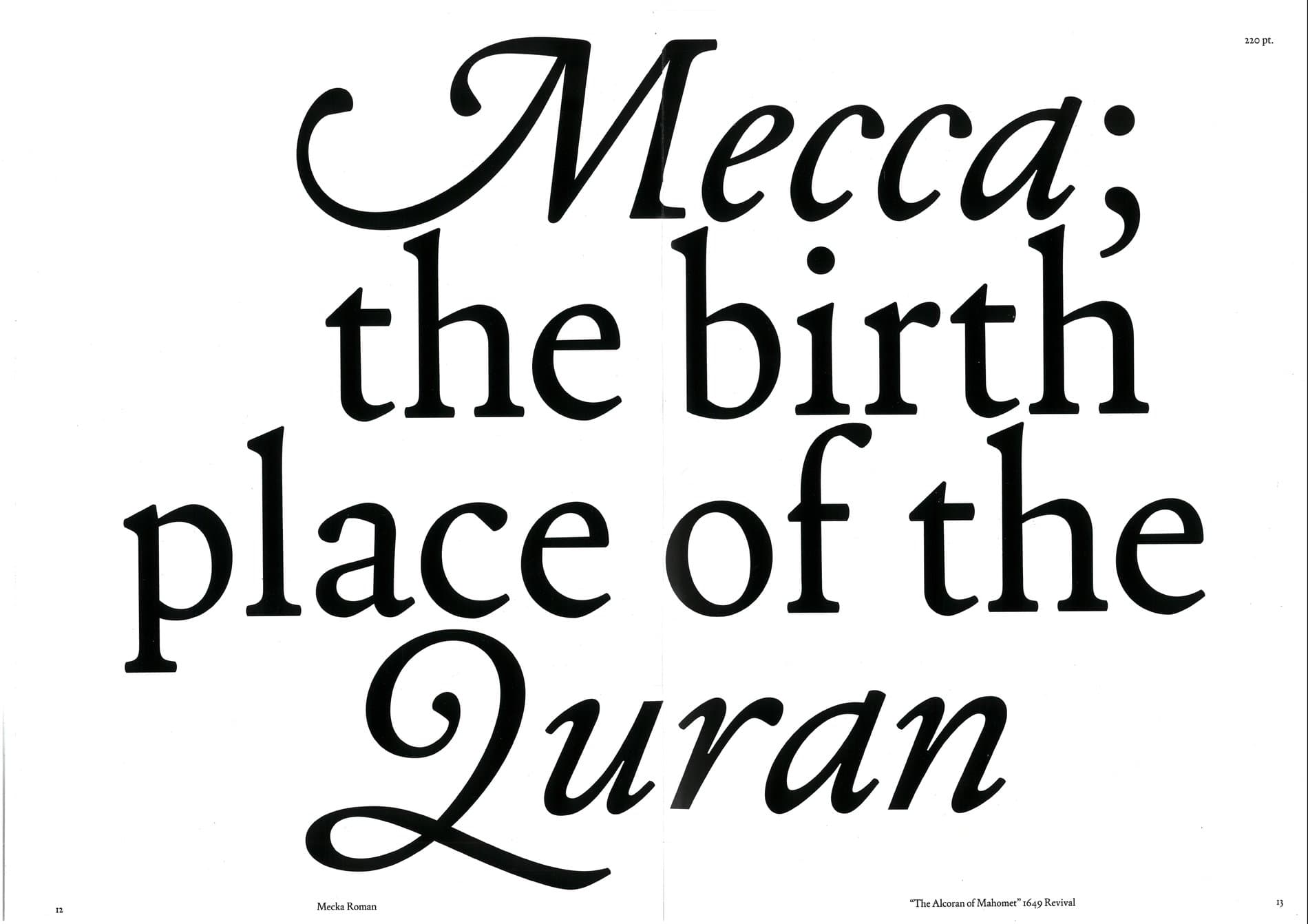
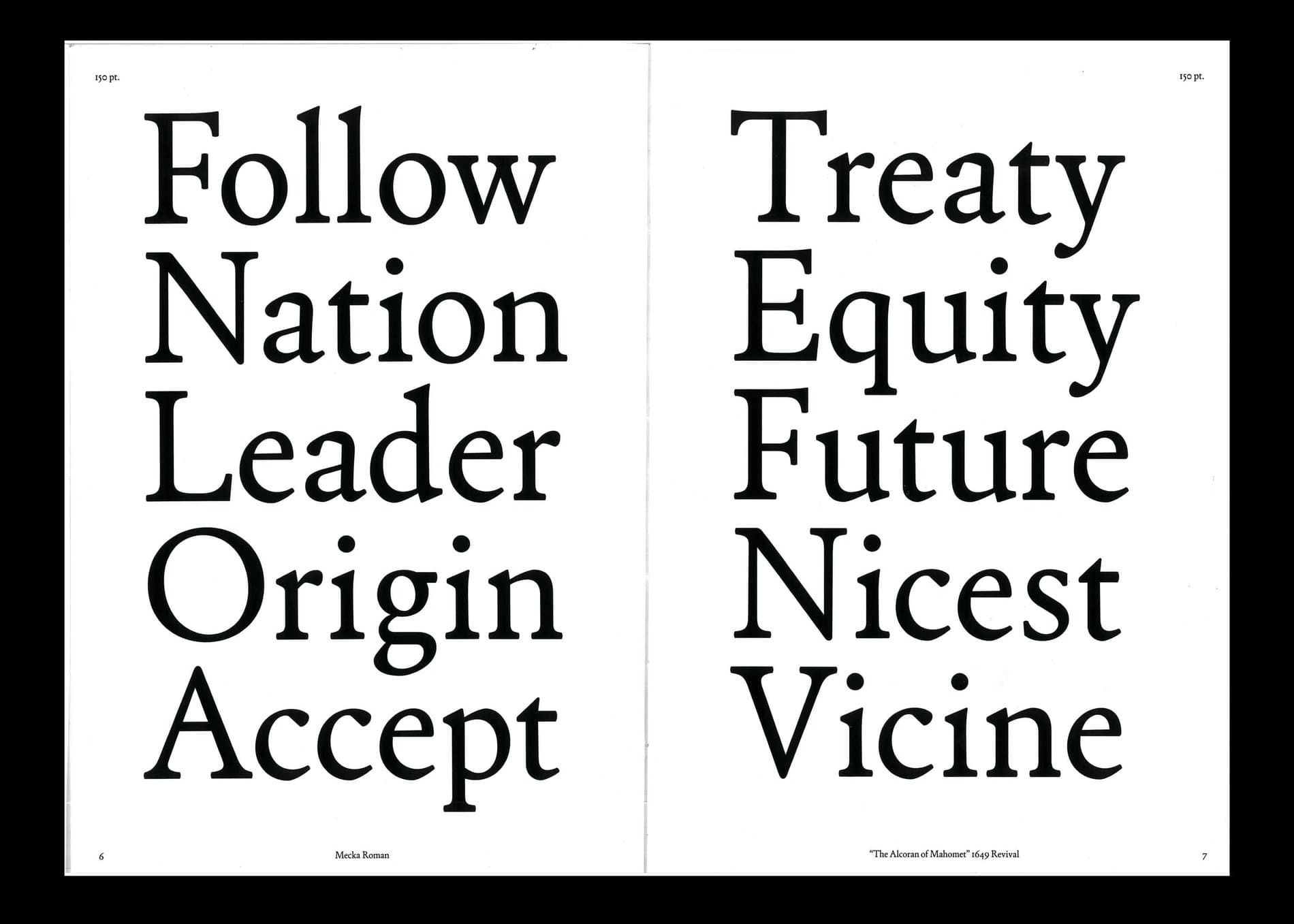
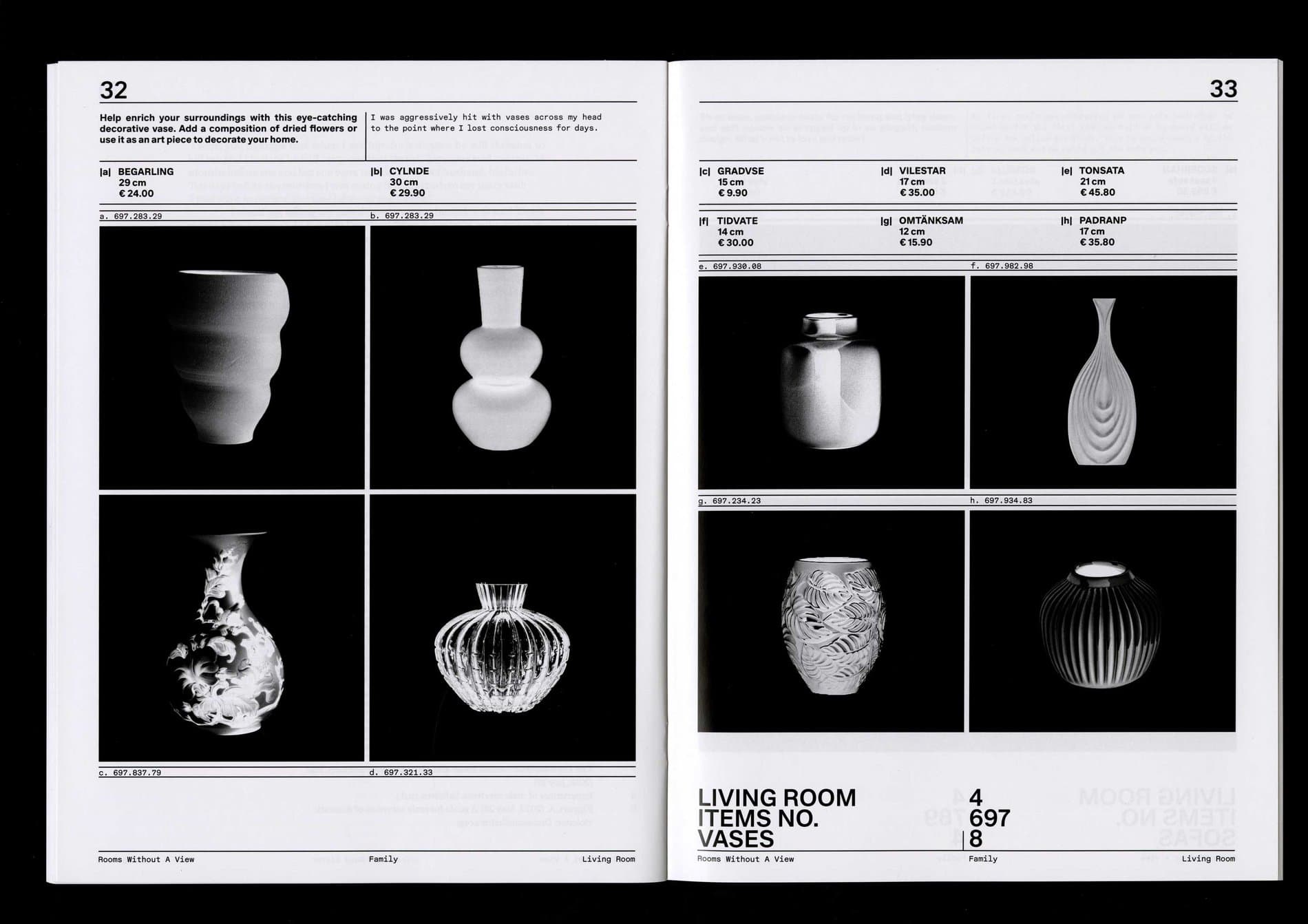
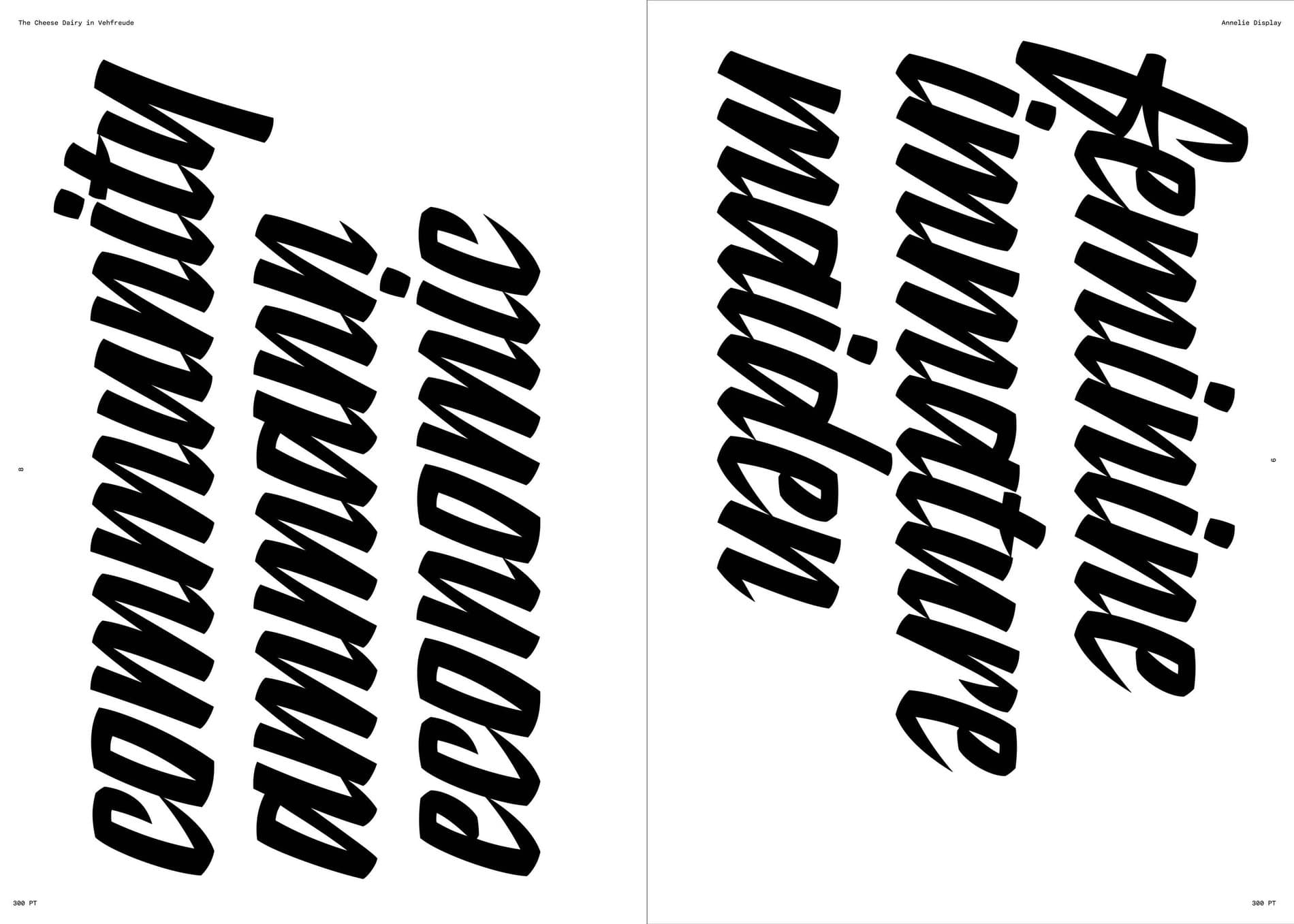
Lina Paola Garzón Gallardo
Lina Garzón is a Latin American graphic designer currently based in Bogotá, Colombia. She studied advertising and graphic design from the Universidad Central de Colombia. In 2015, while working as an advertiser at Leo Burnett, she was introduced to typography. She developed her own brand @gallardaa to show different ways to enjoy typography such as embroidery and painting. She was previously a volunteer for Type Thursday Barcelona and Bogotá. Currently, she is working on a Gallarda, an experimental display typeface inspired by her personality and a particular way to see the lines in typography.
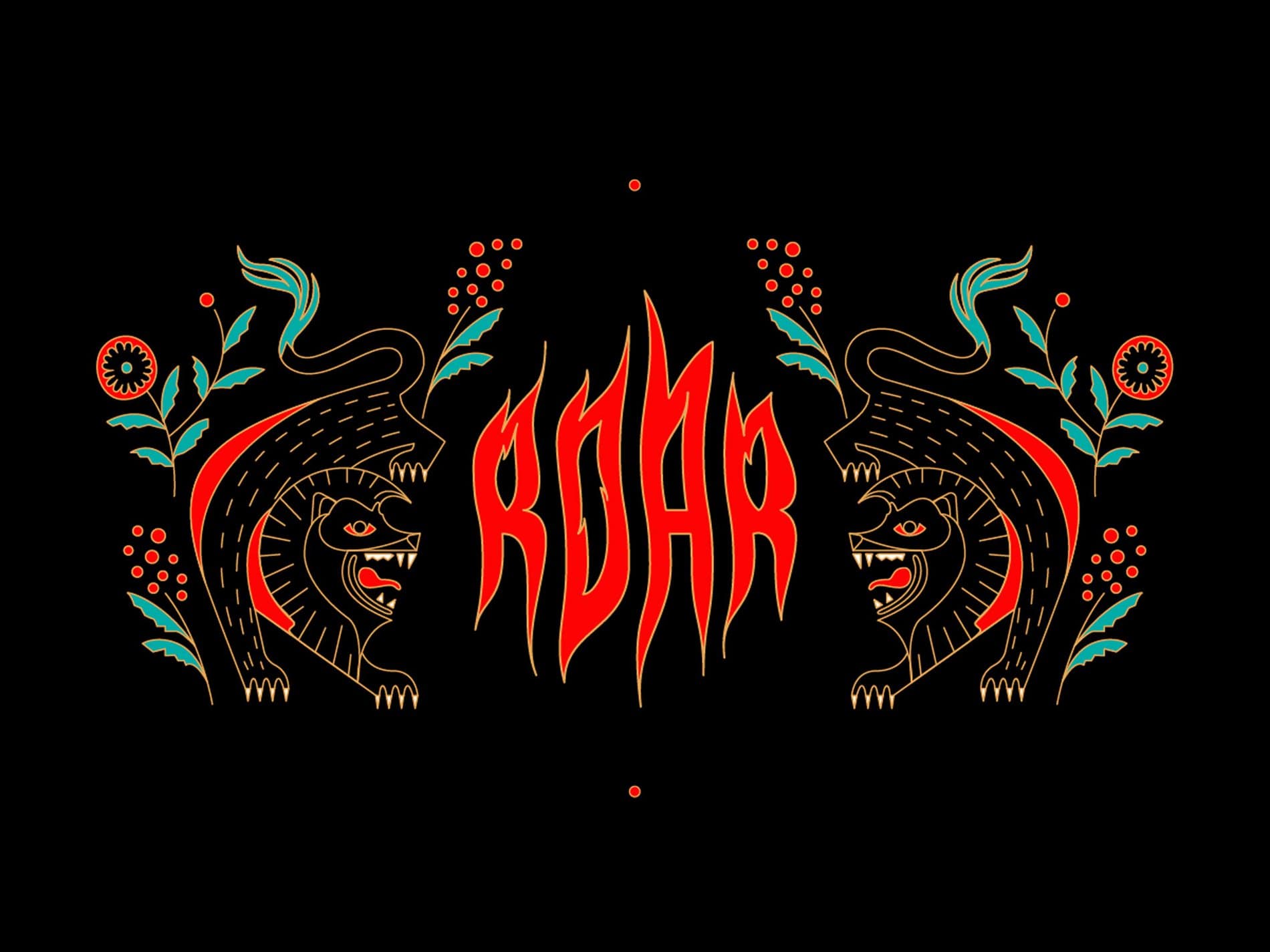
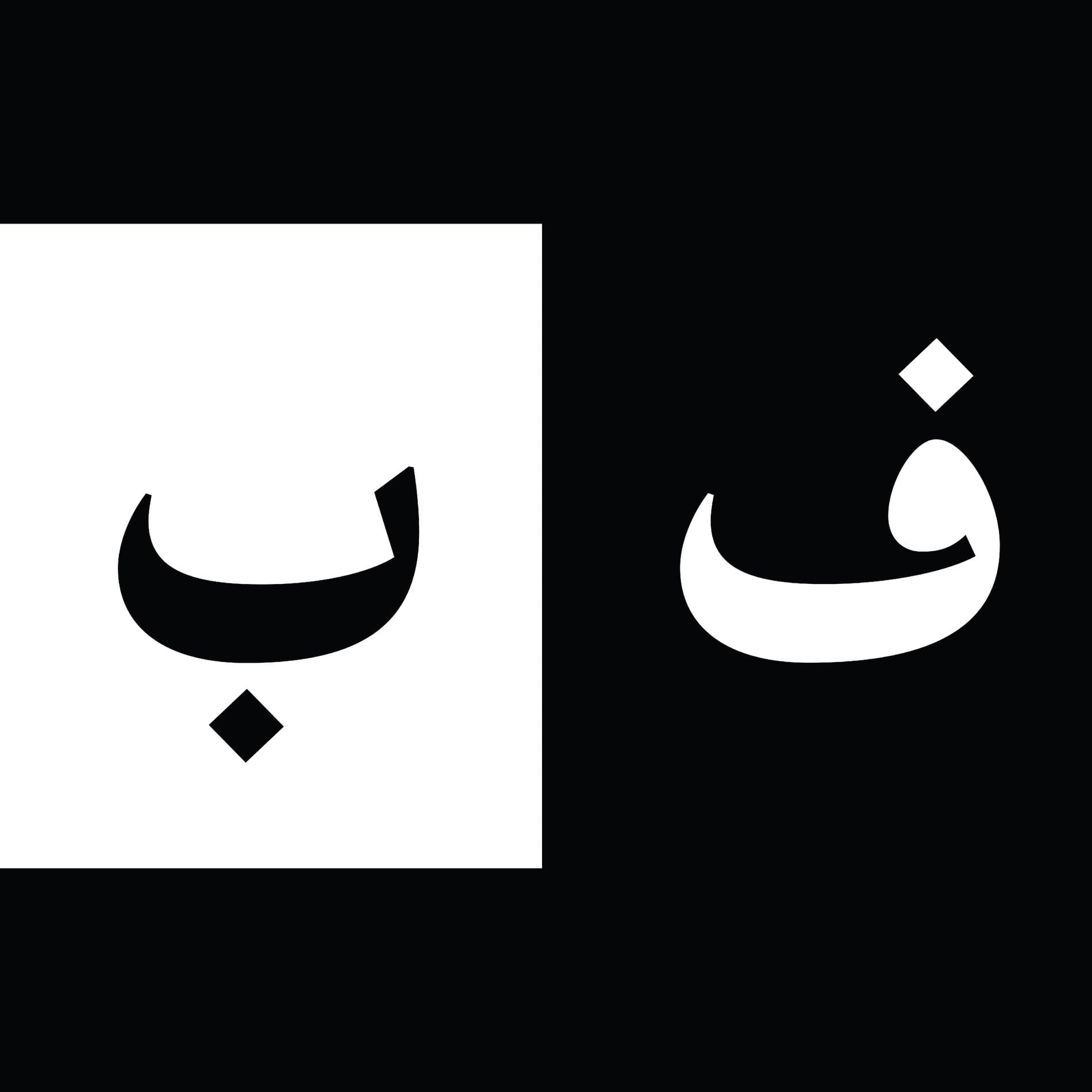
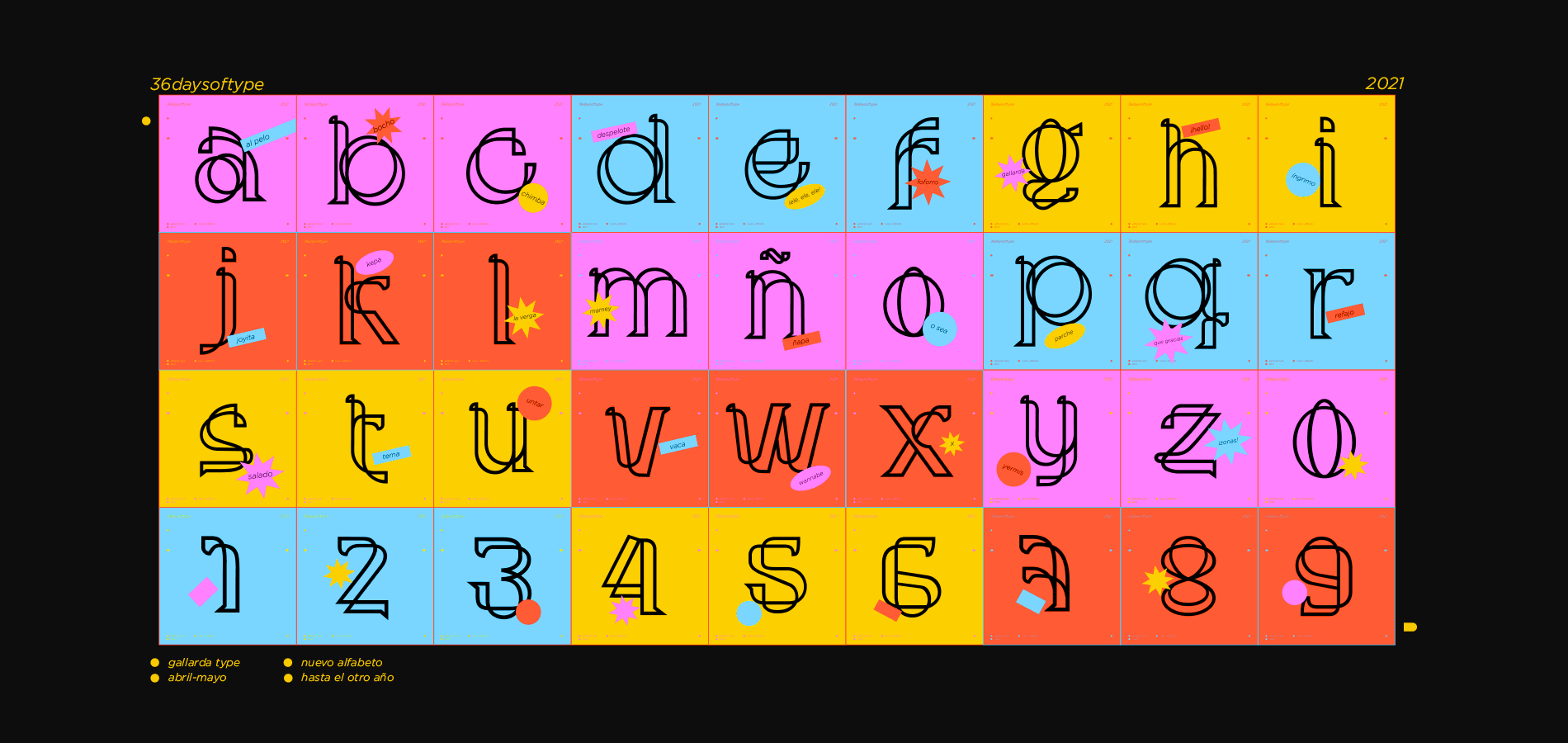
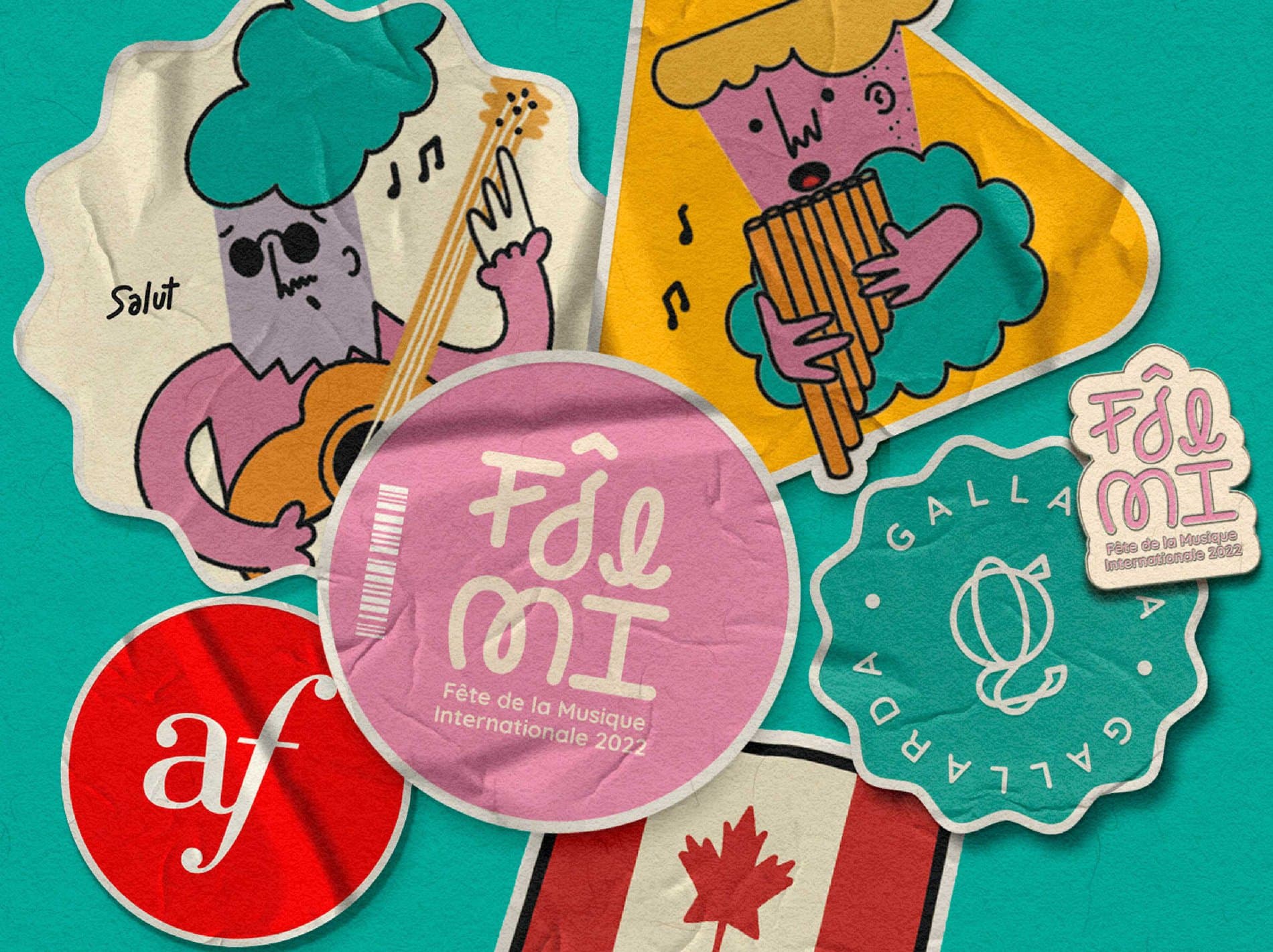
Quỳnh Hương Nguyễn Đức
Quỳnh Hương is a graphic and self-taught type designer currently living and working in Ho Chi Minh City, Vietnam. She takes inspiration from her heritage and language. Her work often consists of hand-lettered, type-based motion and illustrative pieces which reflect Vietnamese culture. Having recently pivoted her practice to be primarily focused on typography and lettering, Quỳnh Hương hopes that creating work in her native language will help influence others within her local creative community to do the same and celebrate their origins. She is passionate about raising awareness of the diversity in Vietnamese typography and visual culture in the worldwide creative industry.
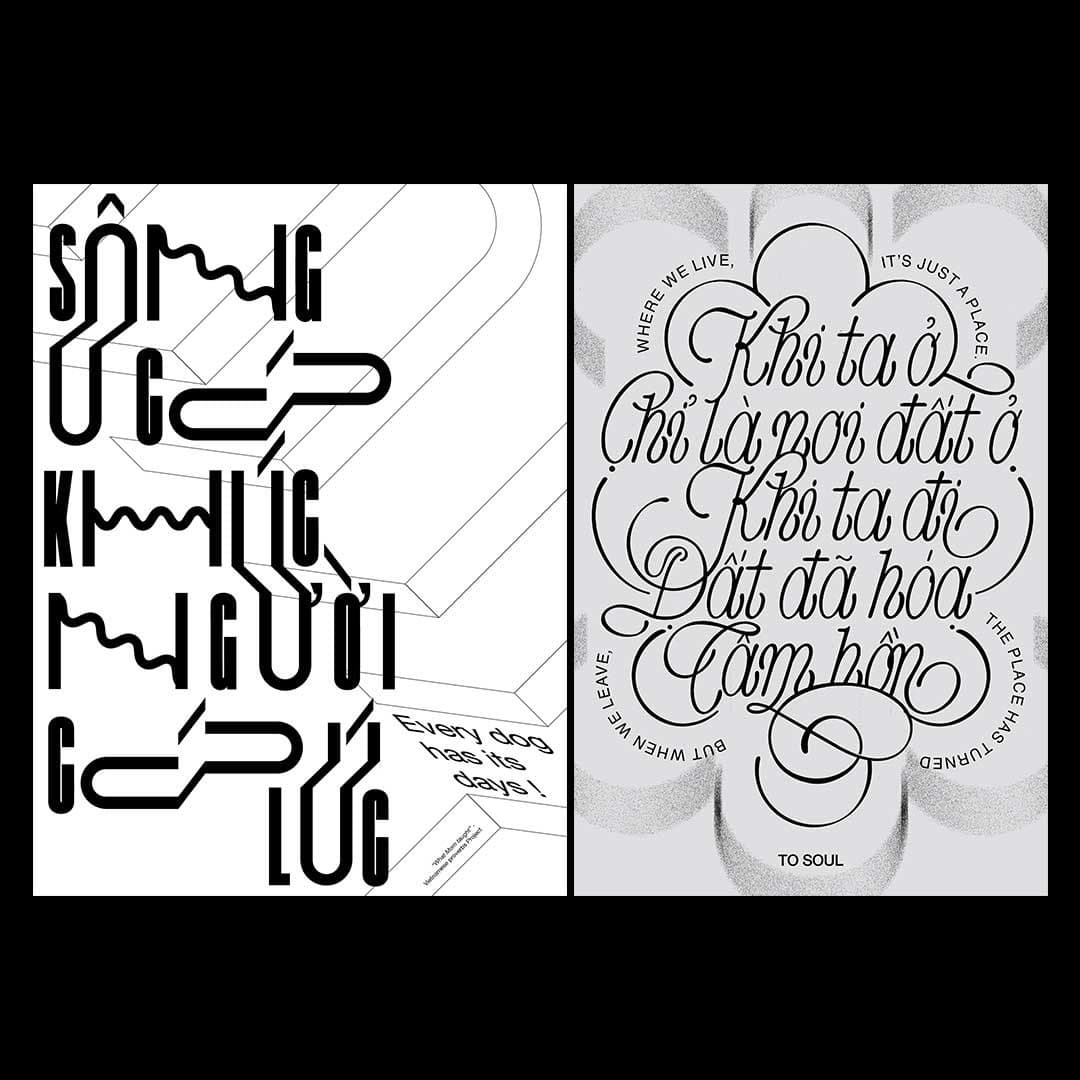
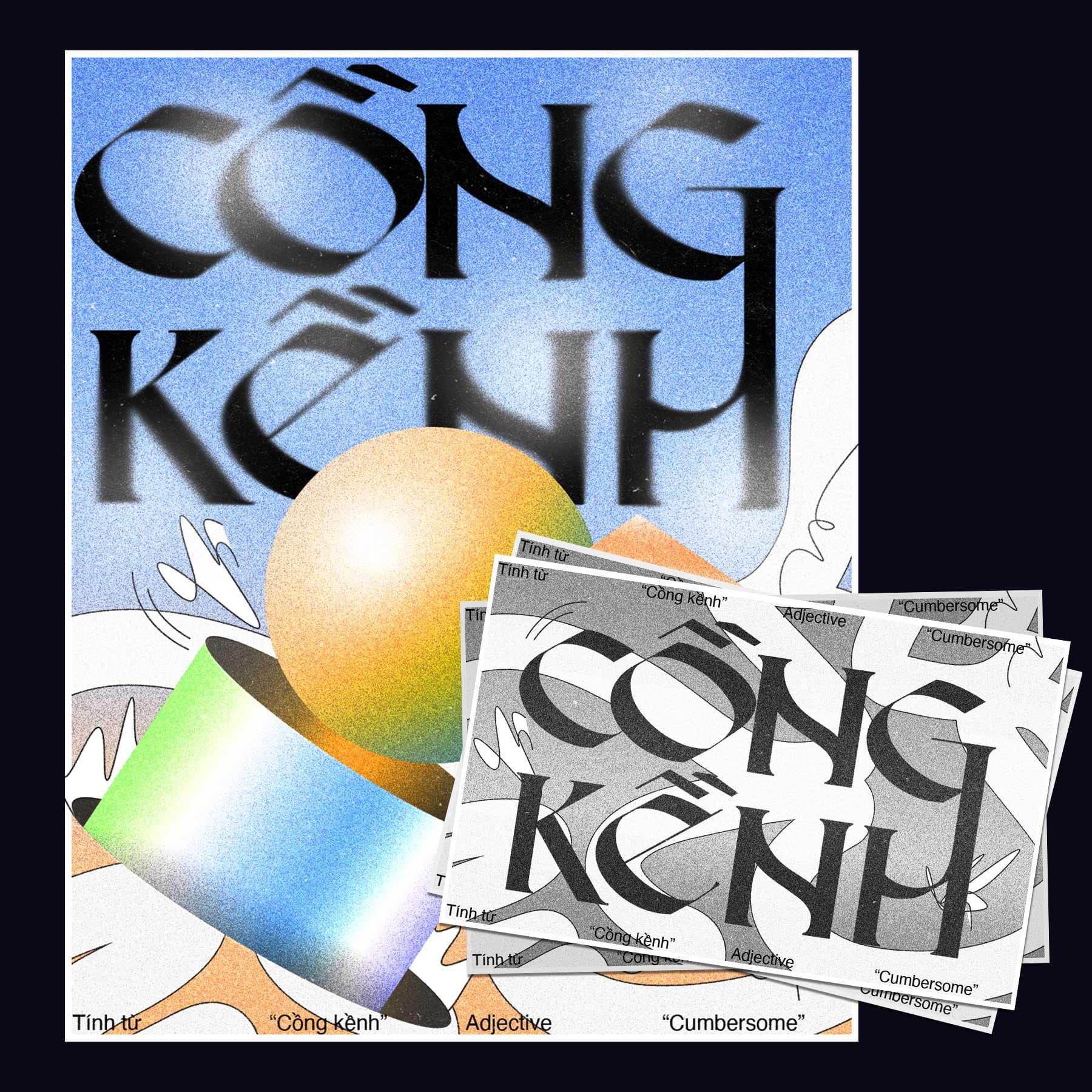
Norma Elzoghbi
Norma Elzoghbi is a graphic designer and type designer from Lebanon. She received her Bachelors in Graphic Design with a minor in English Literature at the American University of Beirut. As a child, she actively questioned the history that was being taught in her school, paging through redacted and censored books to figure out truths. This experience fed her rebellious appetite to be critical of corruption in her city and the faults of the parliament. At first, she wanted to become a writer, to share all that she learned and continued to question. However, during her university studies, typography became the only language she was enthralled by, and her words became more powerful when they not only spoke through textual content but through visual personas. After graduating, she worked for two years and employed her newly acquired typographic skills. She describes how working with letterforms became instinctive and her explorations were limitlessly crossing boundaries of conventional work. This year, she proceeded to attend the Masters in Type Design at ECAL take her design studies to the next level and be able to communicate with a mass of people about excruciatingly vital issues across borders.